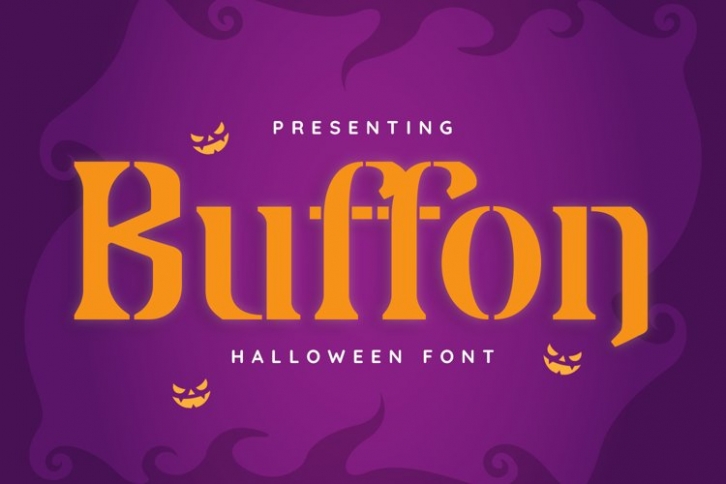
Buffon is a trendy and unique font with an authentic style. It was designed by plusstore and it's a great choice for creative people who need such a font. It was released on October 23, 2021 and the file size is 5.20 MB. Buffon will add an organic vibe to any design idea!